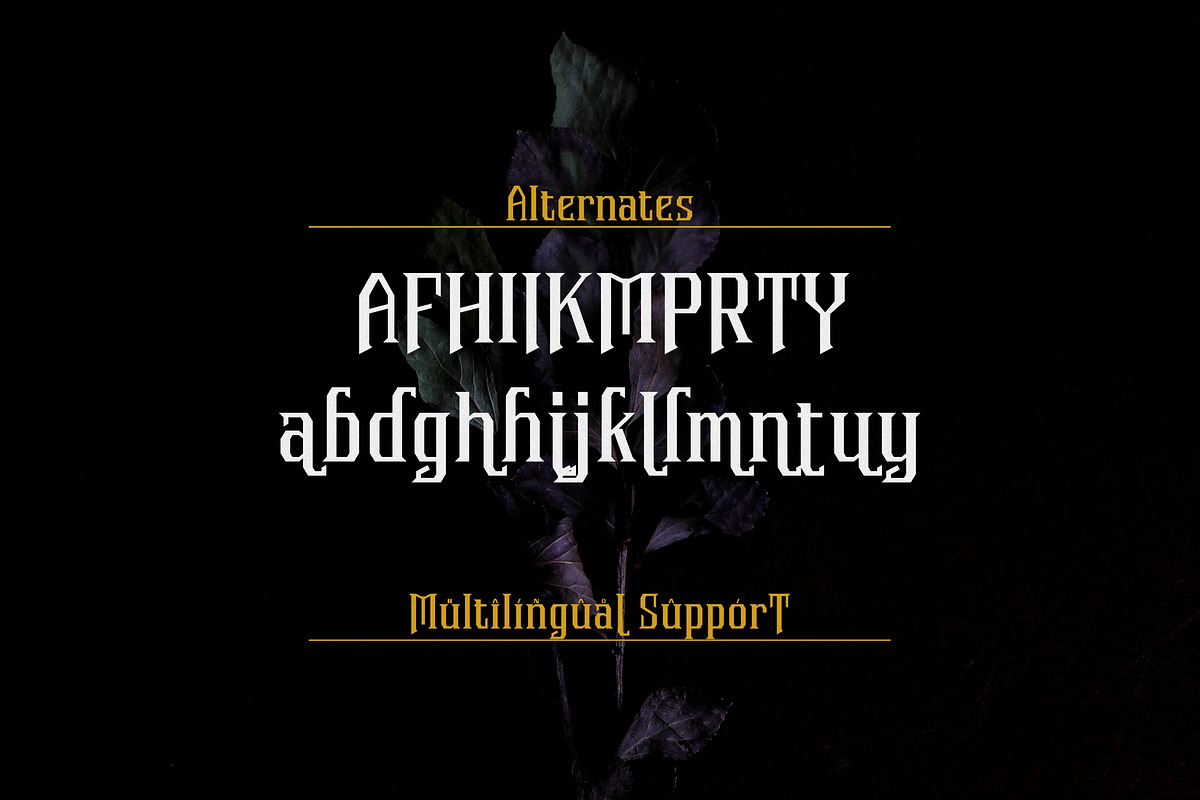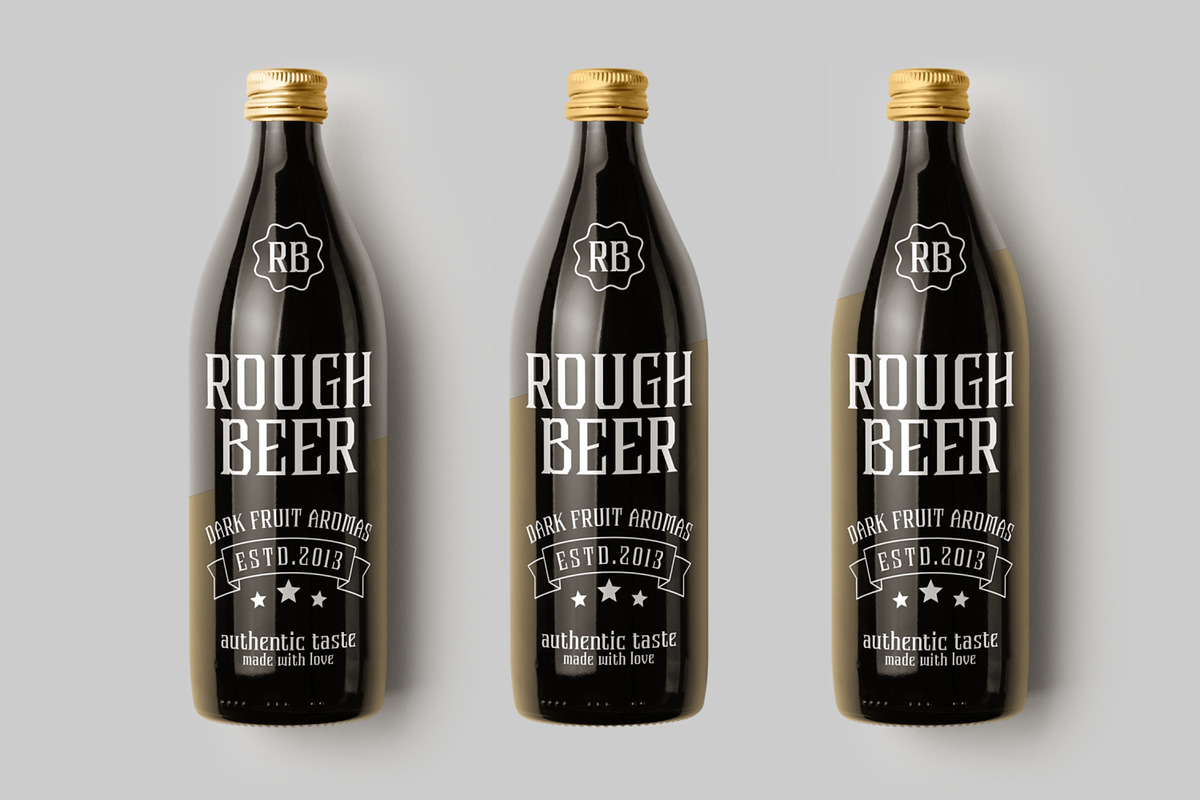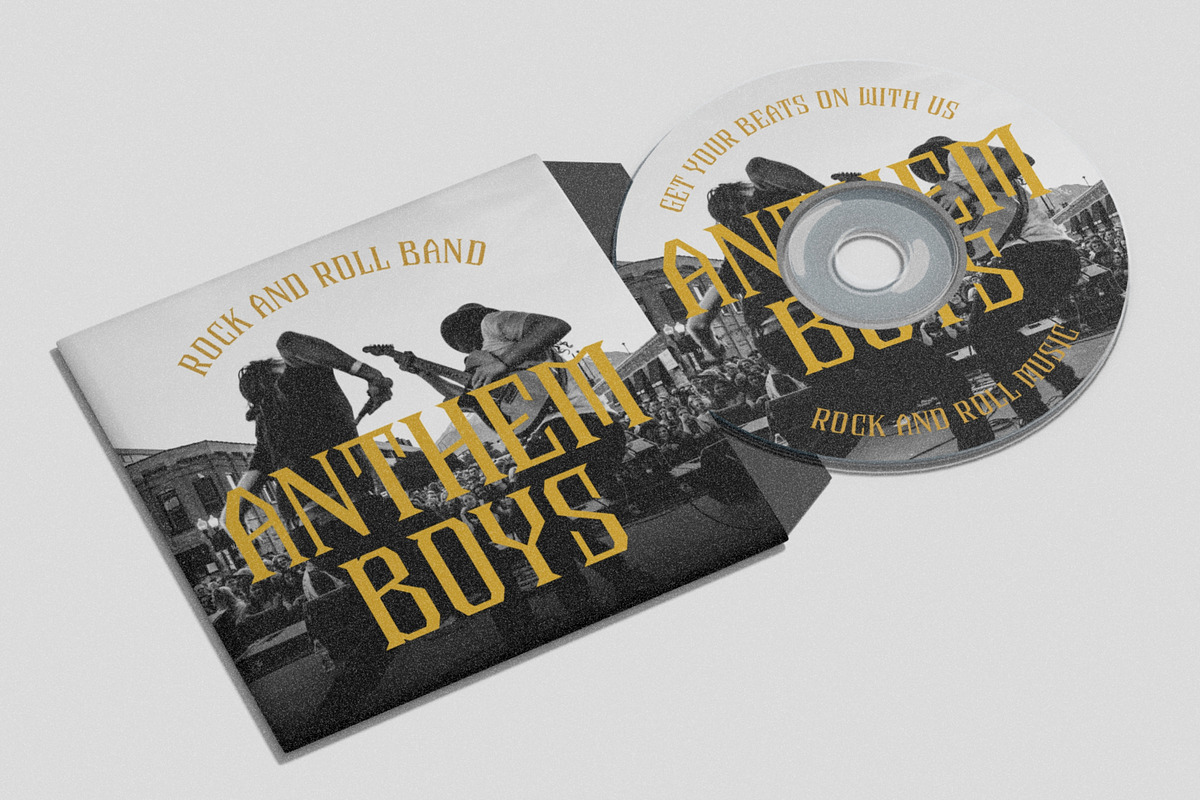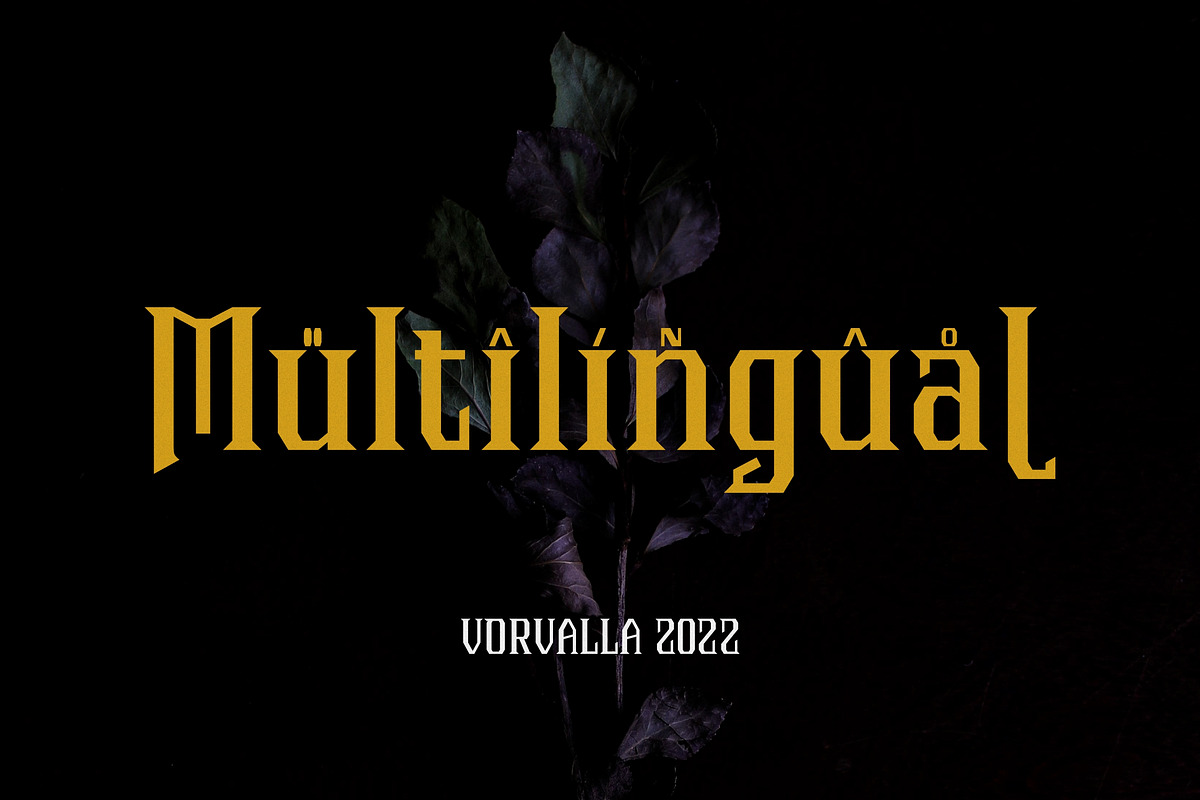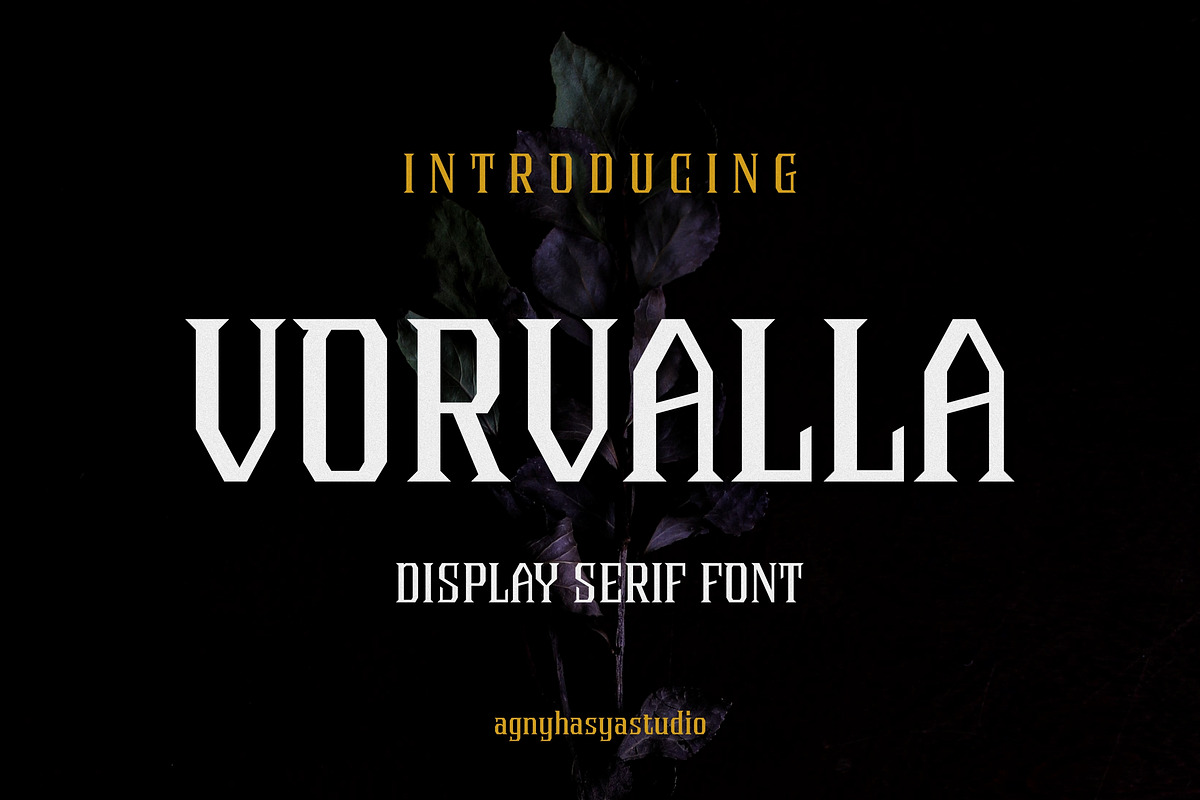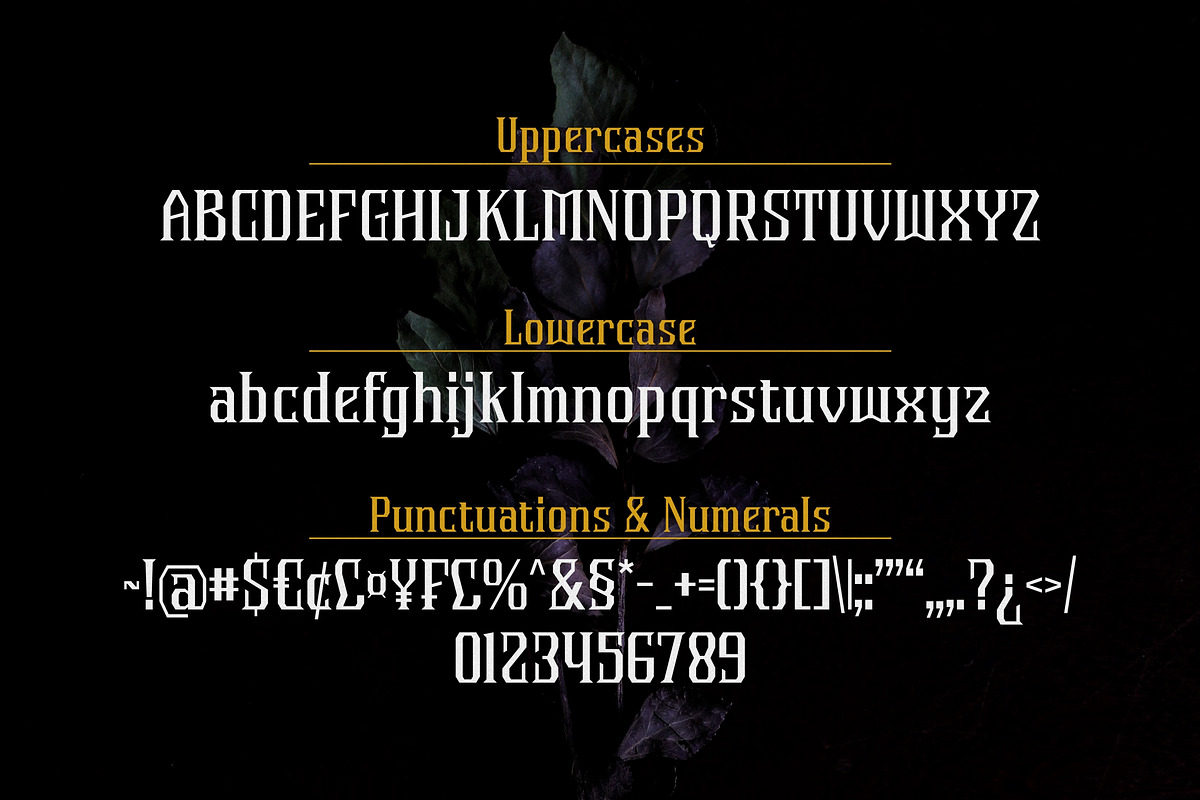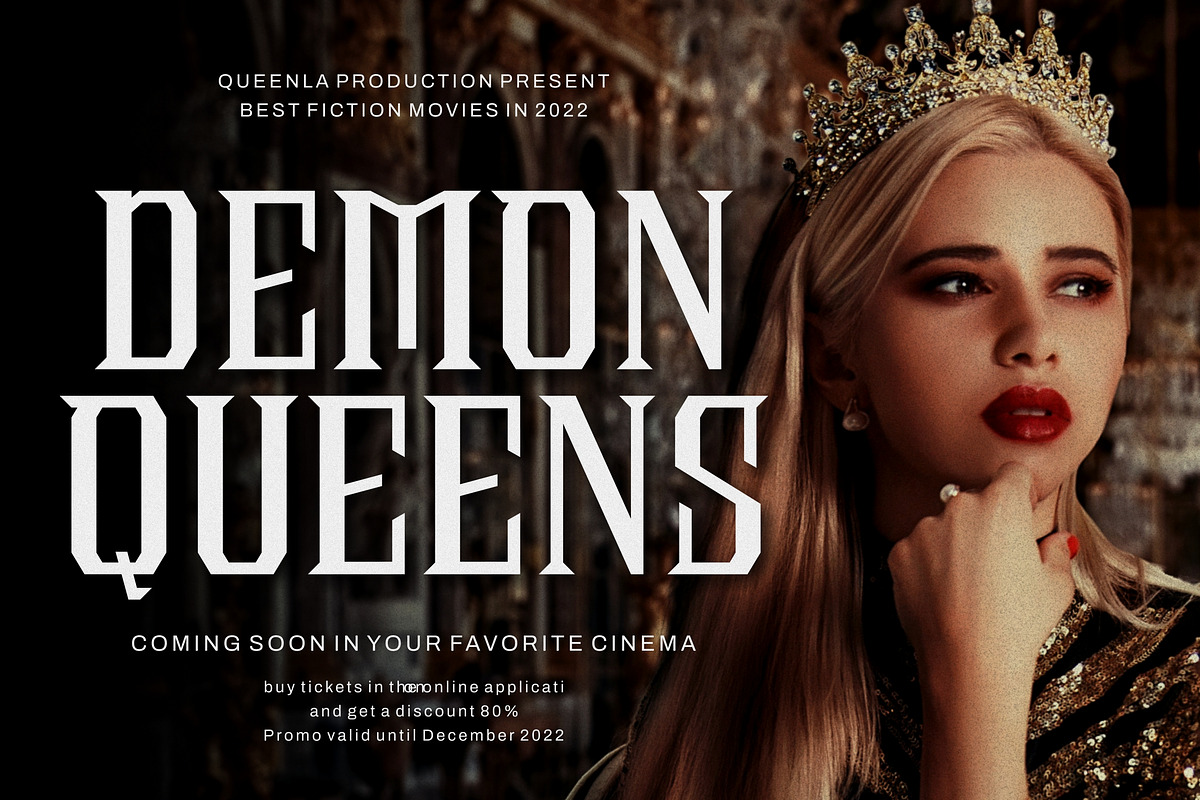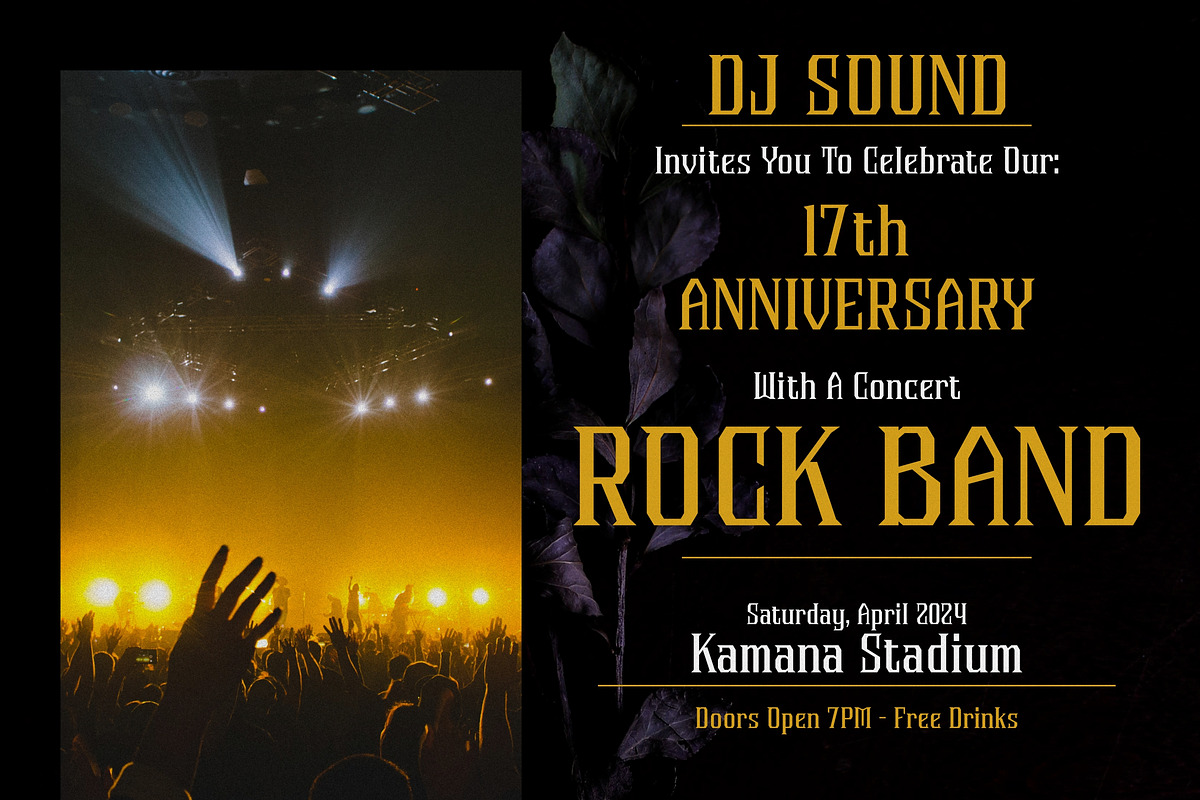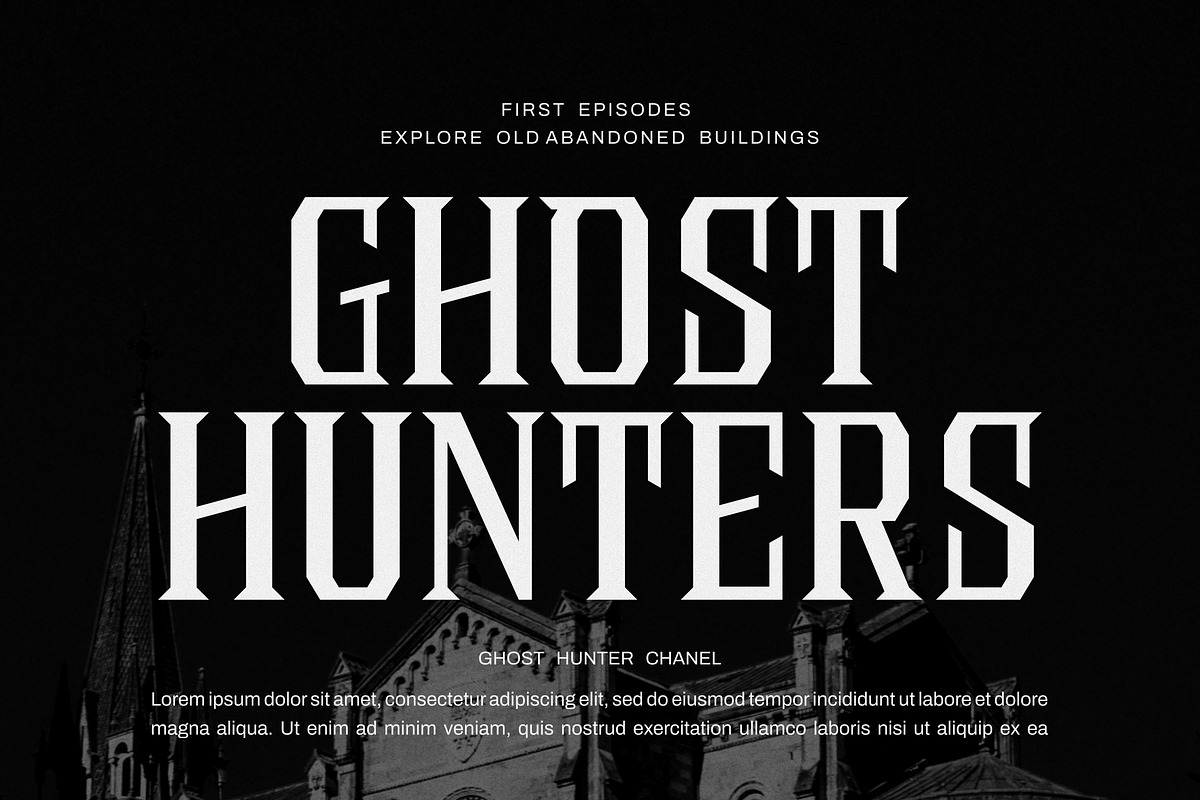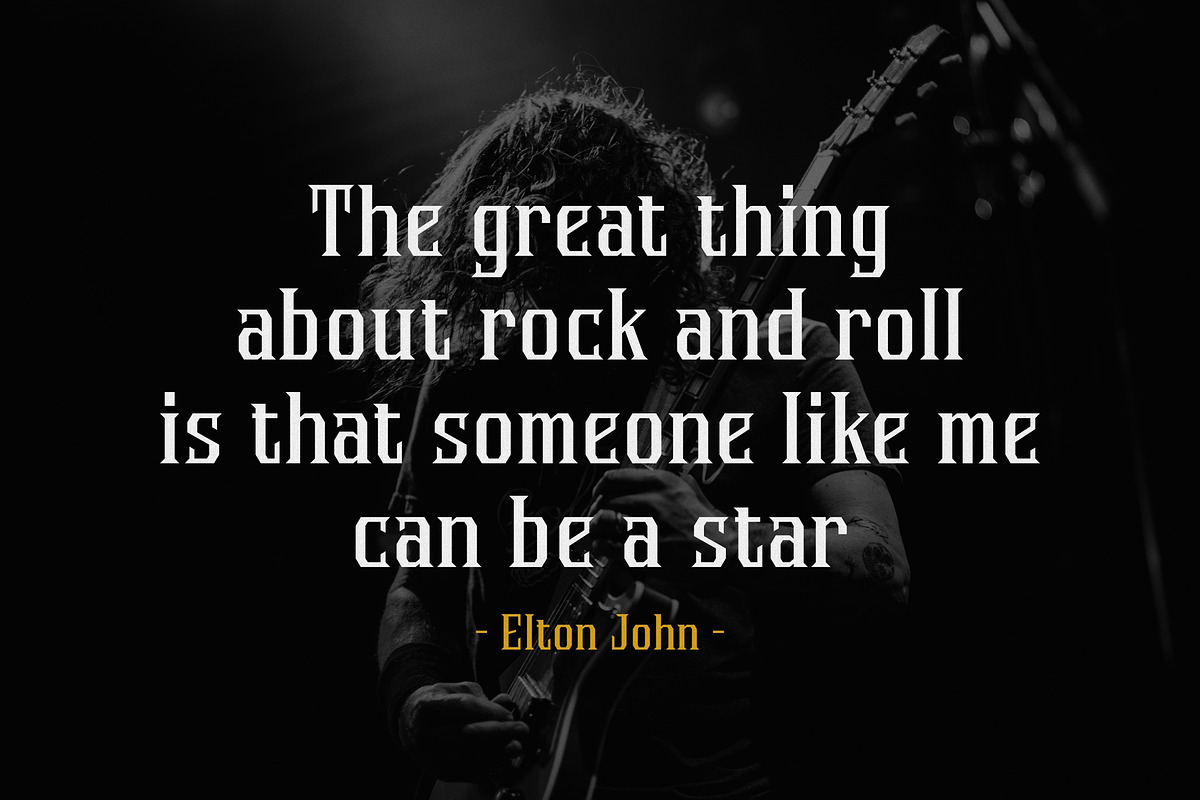
Vorvalla - Gothic Decorative Serif
Introducing Vorvalla - Gothic Decorative Serif
Vorvalla is a Gothic Decorative Display Serif Font featured with Uppercase & Lowercase, Numeral & Punctuation, Multilingual Support and some Alternates
- Opentype Features